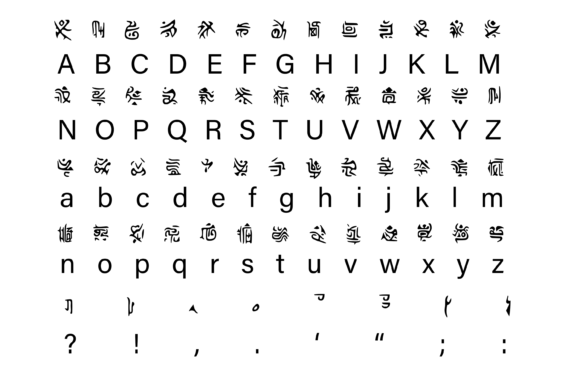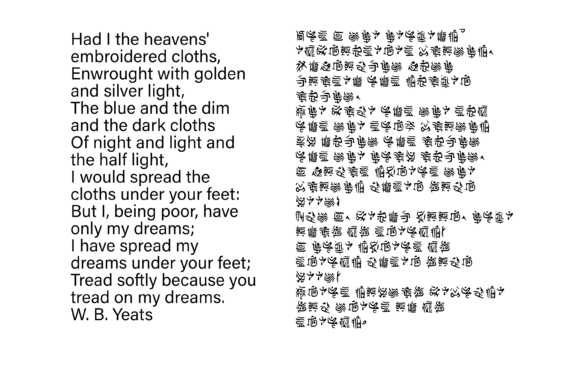
Fantasy Script 7 Font: The Perfect Addition to Your Fantasy World
Are you a designer, writer, or crafter looking to add a touch of magic to your next project? Look no further than the Fantasy Script 7 Font. This enchanting font is perfect for any fantasy-themed endeavor, whether it’s a Dungeons and Dragons campaign, a fantasy LARP adventure, a novel, or any other creative project. In this article, we’ll explore the features and benefits of the Fantasy Script 7 Font and why it’s the ideal choice for bringing your fantasy world to life.
A Font Fit for Fantasy
The Fantasy Script 7 Font is designed to transport you and your audience to a world of wonder and magic. Its intricate and ornate design is reminiscent of ancient manuscripts, mystical artifacts, and forgotten lore. The font’s elegant script style is perfect for creating titles, headings, and body text that evoke a sense of fantasy and adventure.
One of the standout features of the Fantasy Script 7 Font is its comprehensive character set. The font includes the standard English alphabet and basic punctuation, making it easy to use for a wide range of projects. Whether you’re creating a poster, a website, or a manuscript, this font has got you covered.
The Fantasy Script 7 Font is a versatile tool that can be used in a variety of creative projects. Designers will love using it to create stunning visual effects, such as:
- Fantasy-themed posters and flyers
- Custom party invitations and decorations
- Enchanted logos and branding materials
- Magical typography and quotes
Crafters, on the other hand, can use the Fantasy Script 7 Font to add a touch of personality to their handmade projects, such as:
- Custom jewelry and accessory designs
- Hand-painted signs and artwork
- Fantasy-themed scrapbooking and paper crafting
- DIY costumes and cosplay accessories
Why Choose the Fantasy Script 7 Font?
With so many fonts available, why choose the Fantasy Script 7 Font? Here are just a few reasons why this font stands out from the rest:
- Unique and distinctive design: The Fantasy Script 7 Font has a one-of-a-kind design that’s sure to make your project stand out.
- High-quality and legible: The font is designed to be clear and easy to read, even at small sizes.
- Easy to use: The font includes a comprehensive character set, making it easy to use for a wide range of projects.
- Fantasy-themed: The font’s fantasy theme is perfect for creating immersive and engaging projects.
| Font Name | Fantasy Script 7 Font |
| Author | Alavays |
In conclusion, the Fantasy Script 7 Font is a fantastic addition to any fantasy-themed project. Its unique and distinctive design, high-quality and legibility, and ease of use make it the perfect choice for designers, writers, and crafters. Whether you’re creating a Dungeons and Dragons campaign, a fantasy LARP adventure, a novel, or any other creative project, this font is sure to bring your fantasy world to life. So why wait? Download the Fantasy Script 7 Font today and start creating your own magical masterpiece!
- Font Name: Fantasy Script 7
- Font Style: Script
- Character Set: Standard English alphabet and basic punctuation
- Use: Fantasy-themed projects, Dungeons and Dragons, LARP, novels, and more